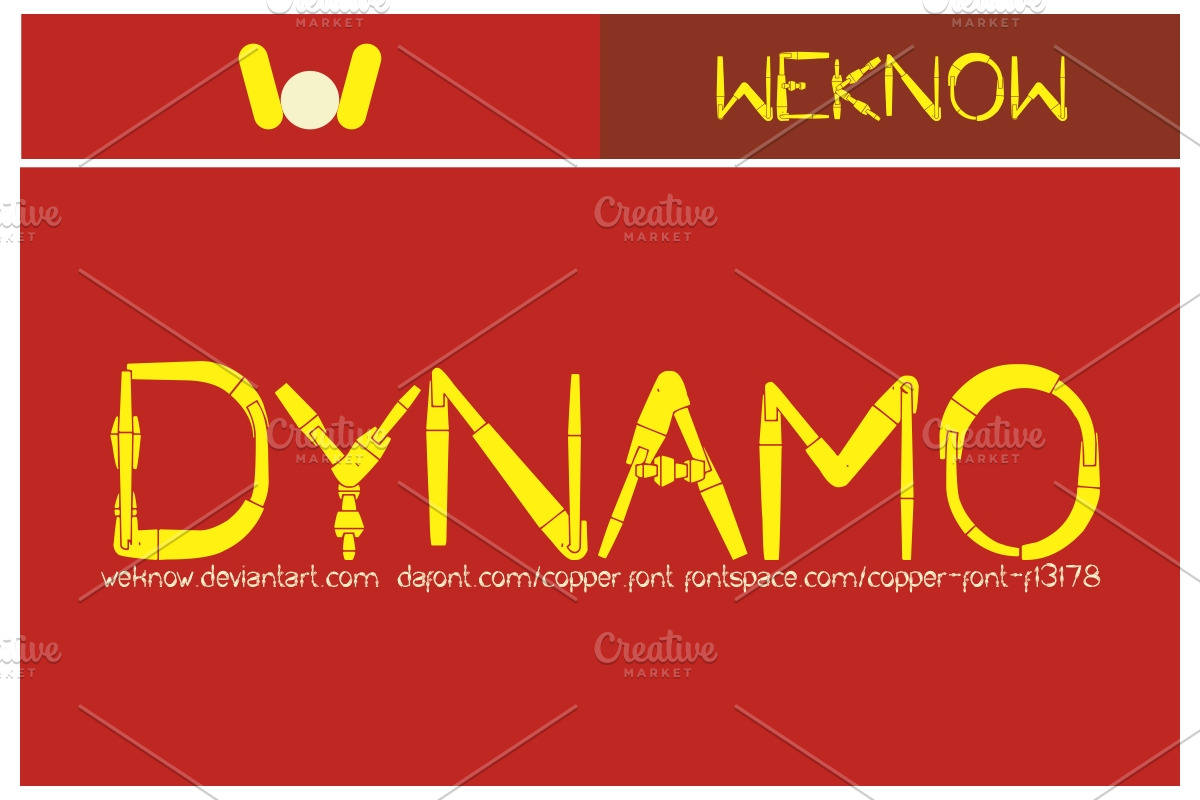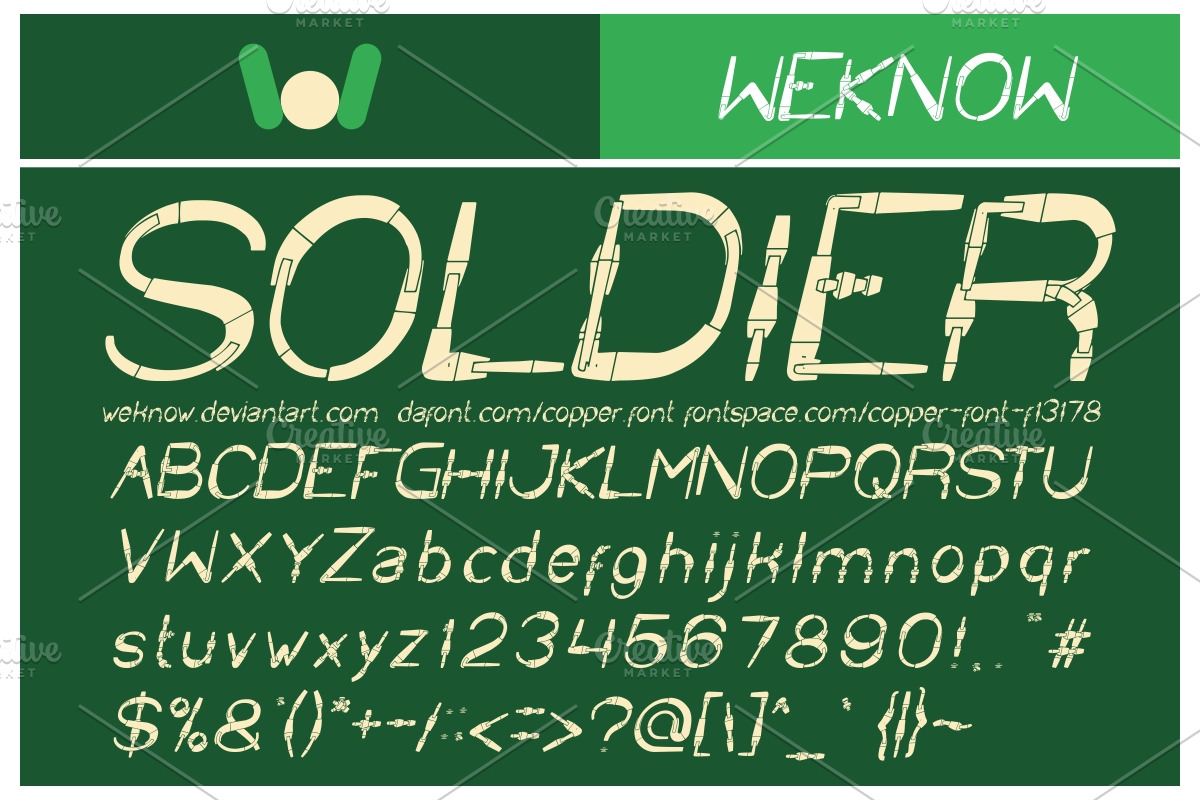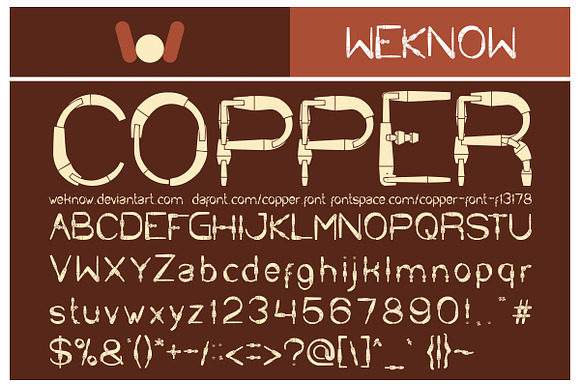
copper font
available style: COPPER-Inverse, copper-Italic
- COPPER-Inverse Regular
- COPPER Regular
- COPPER Italic
copper font by weknow fits naturally into Branding, posters, packaging, typography.